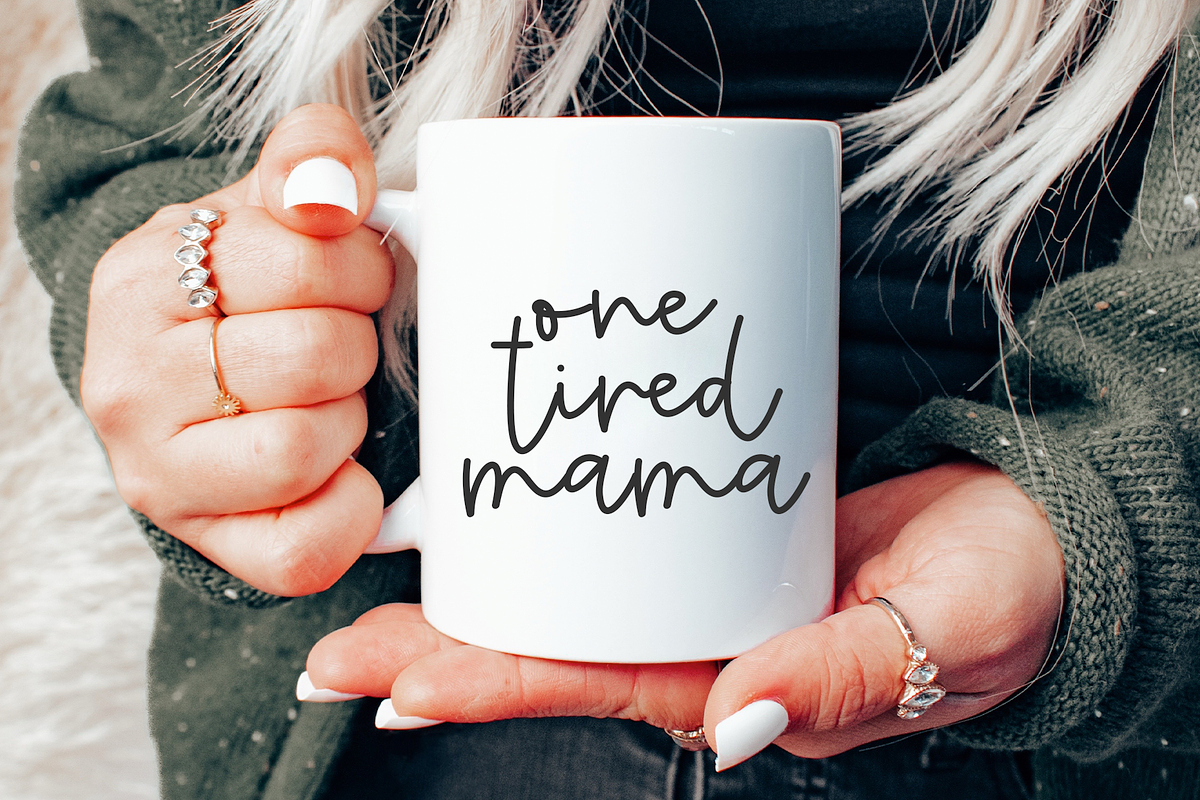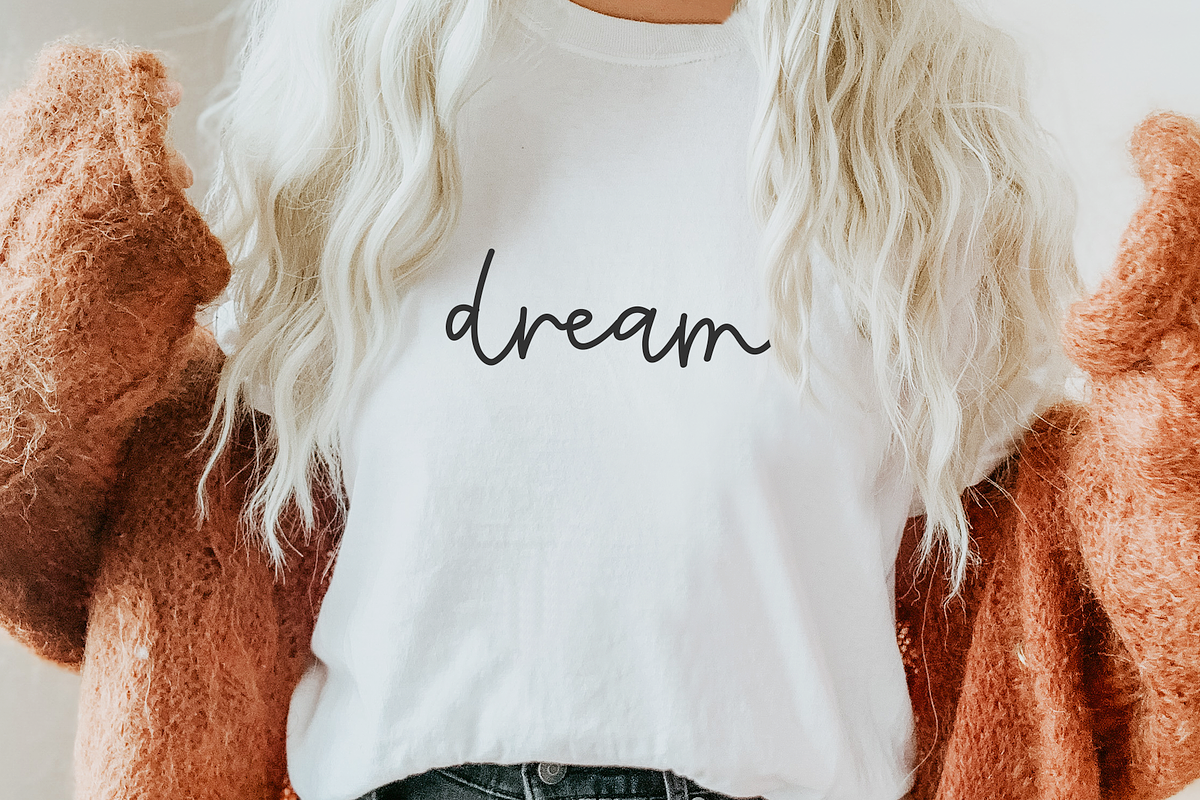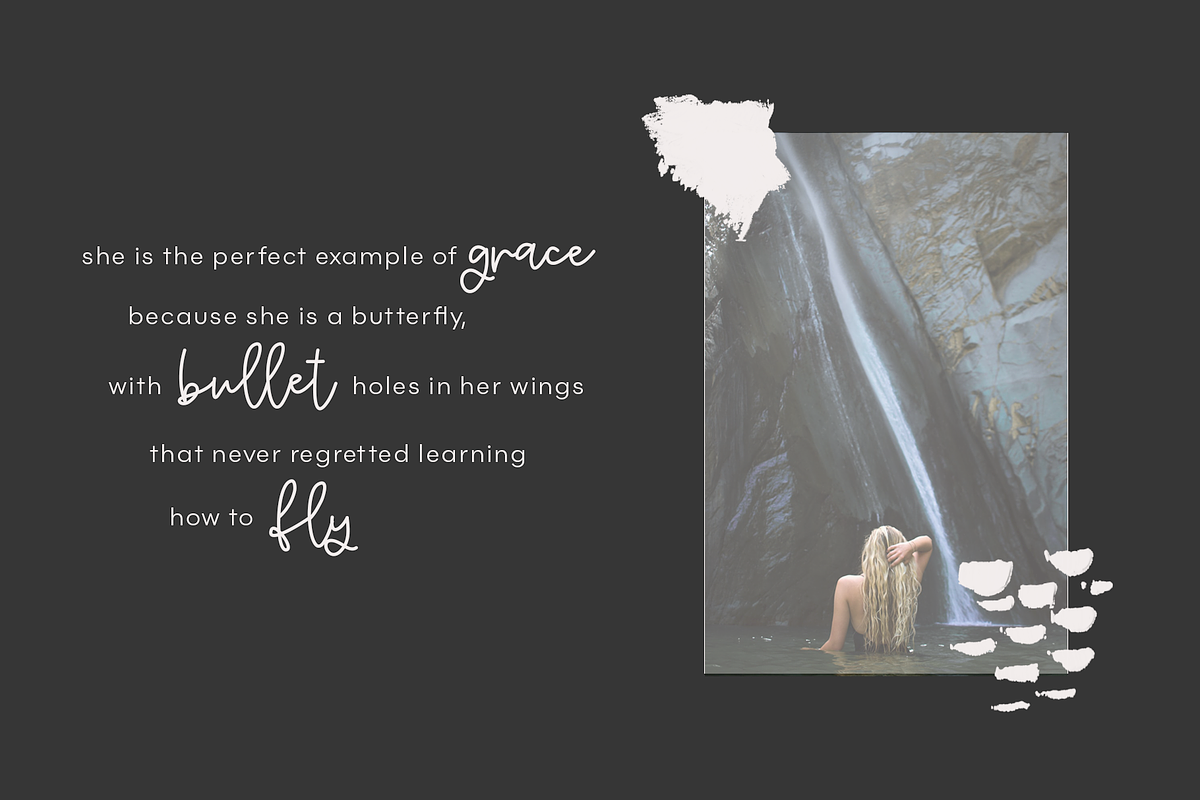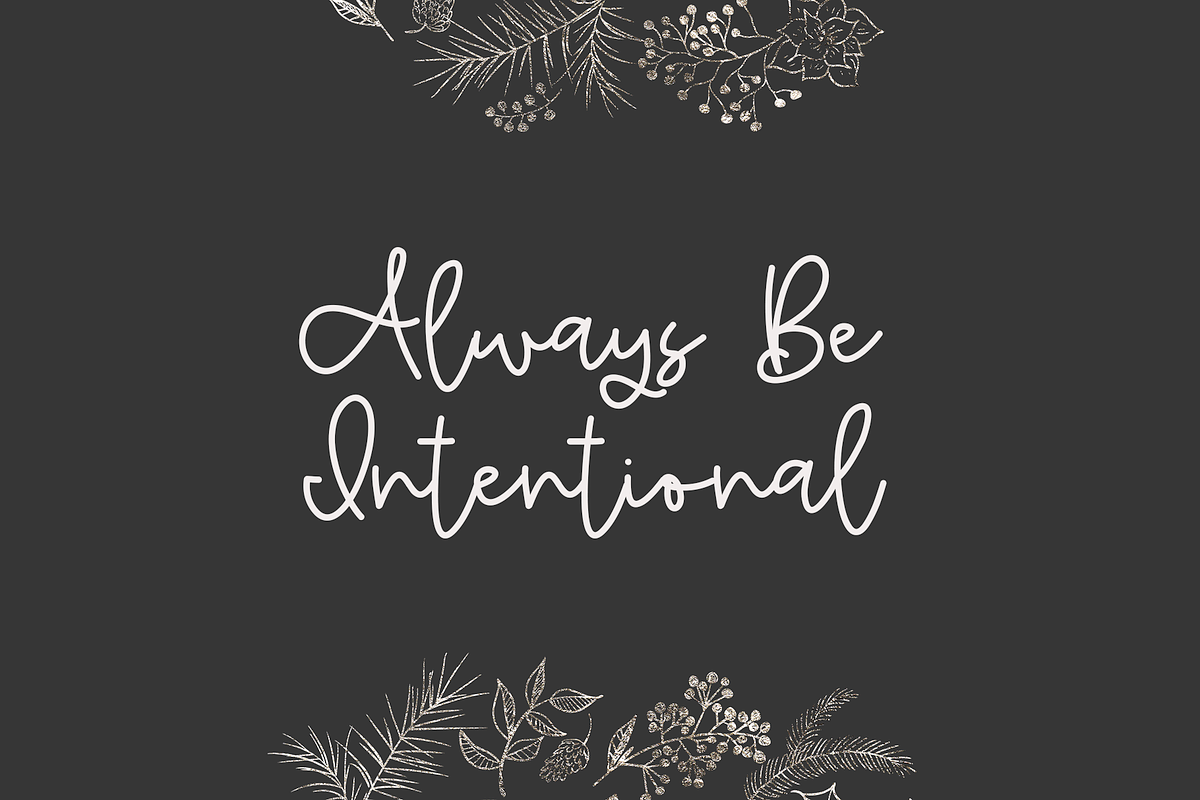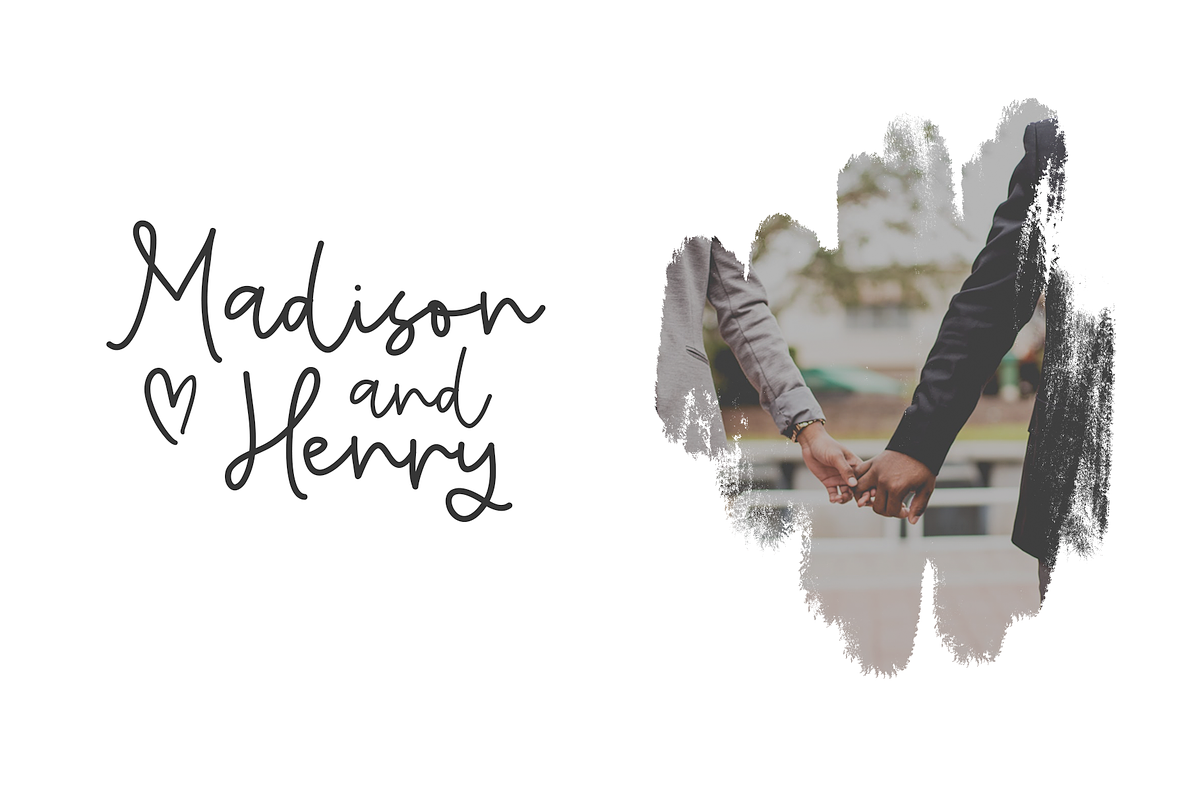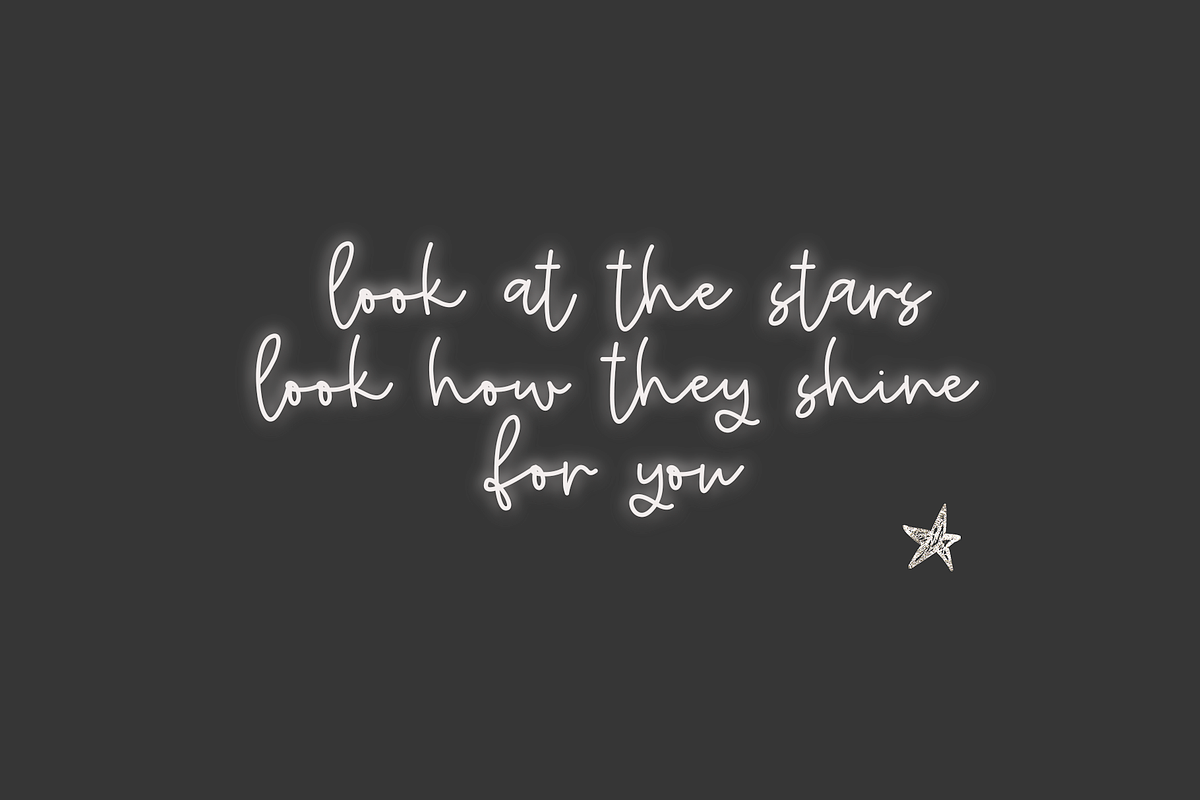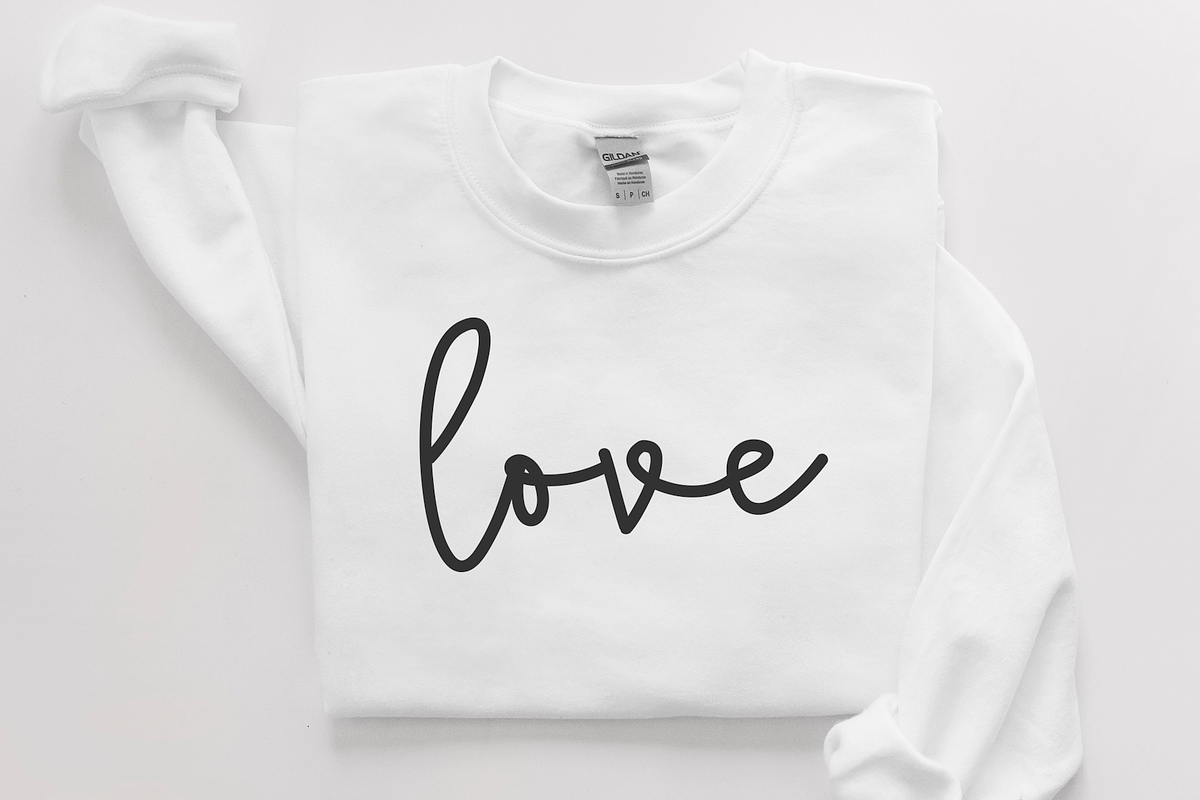
Amsterdam | Handwritten Script Font
Amsterdam is a cute handwritten script font.
This font is perfect for cricut projects, svg designs, stickers, quotes, headings, designs, logos, invitations and more!
Amsterdam | Handwritten Script Font by KA Designs fits naturally into Branding, posters, packaging, typography.